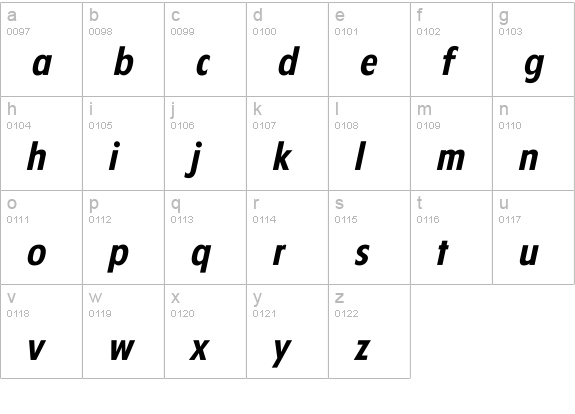
Iflorida DemiBold is a sub-bold, structured variant in the Iflorida typeface family \xE2\x80\x94 well suited to sub-headlines and emphasised passages.
Introducing iFlorida DemiBold, a font that exudes elegance and sophistication. With its bold and powerful presence, iFlorida DemiBold is perfect for all your design needs, whether it be for logos, headlines, or body text. This versatile font strikes the perfect balance between modernity and tradition, making it suitable for a wide range of projects. What sets iFlorida DemiBold apart is not just its stunning aesthetics, but also its accessibility. We believe that everyone should have access to high-quality fonts without breaking the bank. That's why iFlorida DemiBold is freely available to download at FontsMarket.com. Now you can elevate your designs without any financial constraints. The clean lines and sharp edges of iFlorida DemiBold make it highly legible, even at smaller sizes. Its bold weight adds a touch of confidence and authority to any message, making it the ideal choice for presentations, advertising materials, or any design that needs to make a bold statement. Whether you're designing for print or digital, iFlorida DemiBold will effortlessly enhance your visual compositions. Its versatility allows it to pair seamlessly with other fonts, creating harmonious and visually appealing designs. The timeless appeal of iFlorida DemiBold ensures that your designs will remain relevant and impactful for years to come. So why wait? Download iFlorida DemiBold for free at FontsMarket.com and unlock the potential to create stunning designs that captivate and inspire. Elevate your typography game with this effortlessly stylish and accessible font. iFlorida DemiBold is the perfect choice for designers who value both aesthetics and affordability.